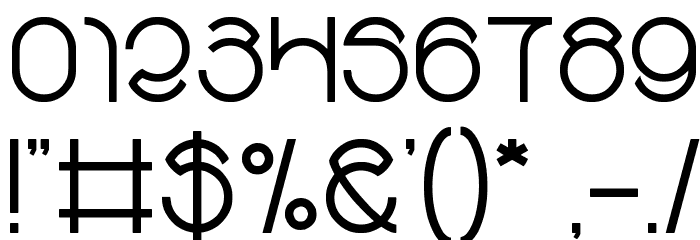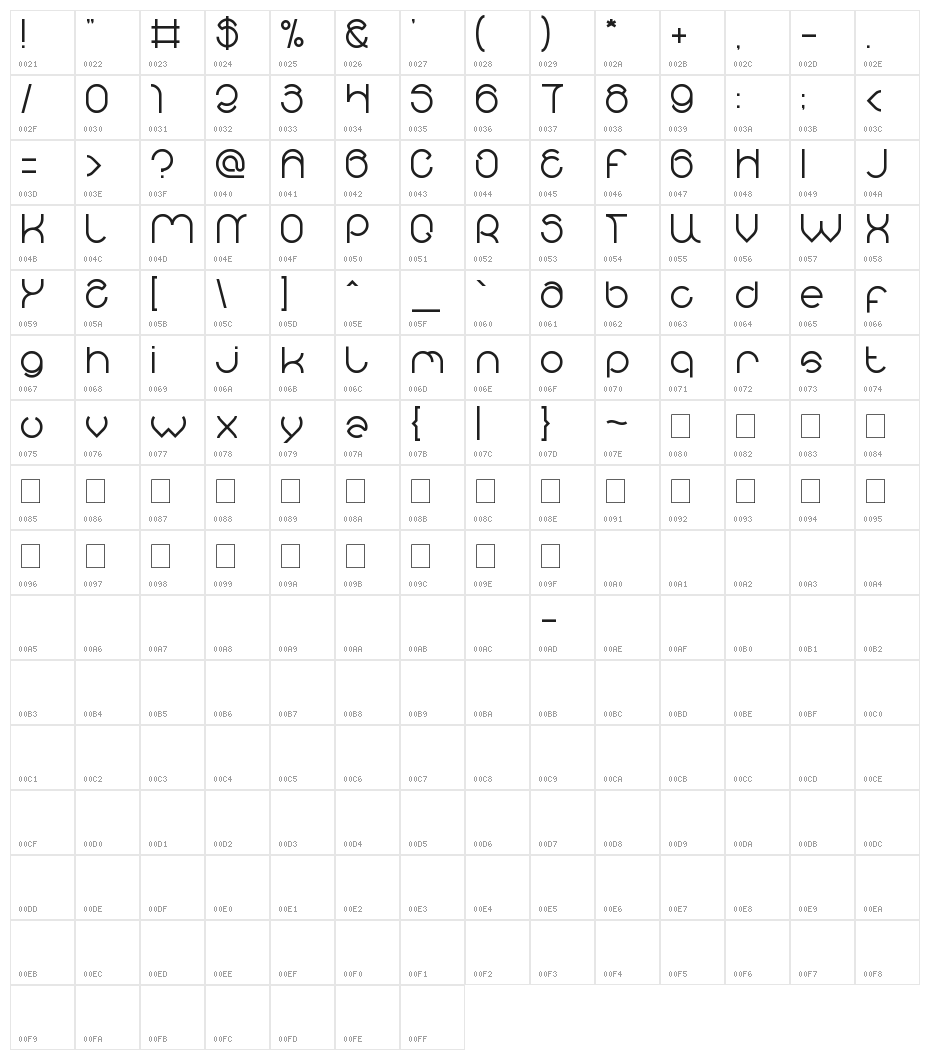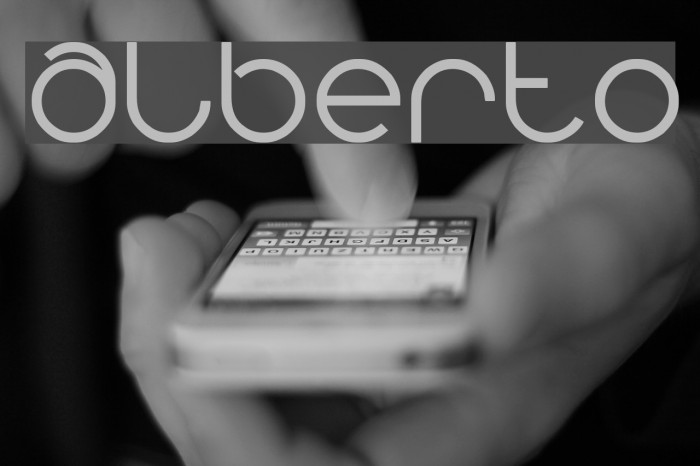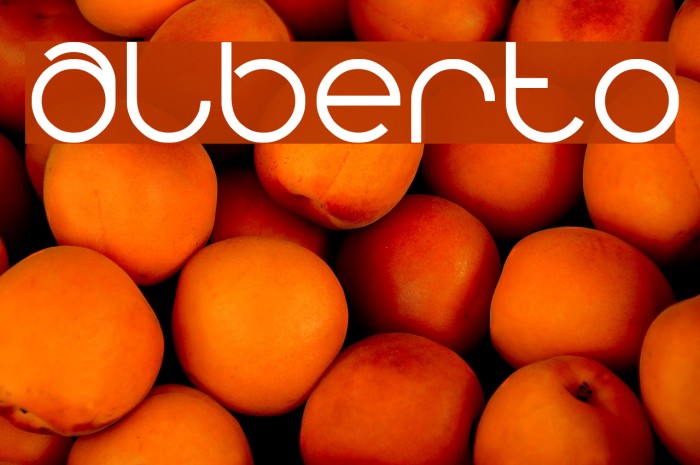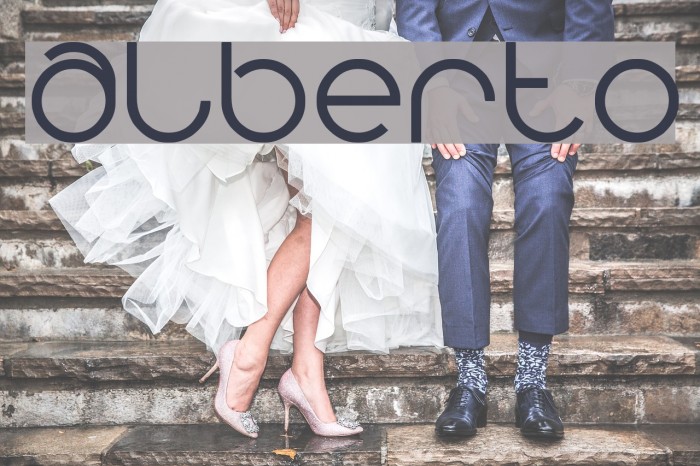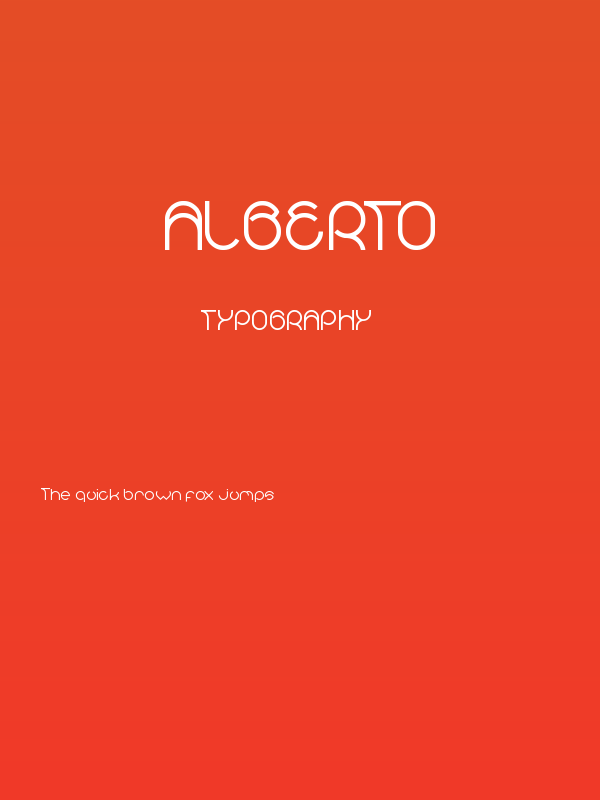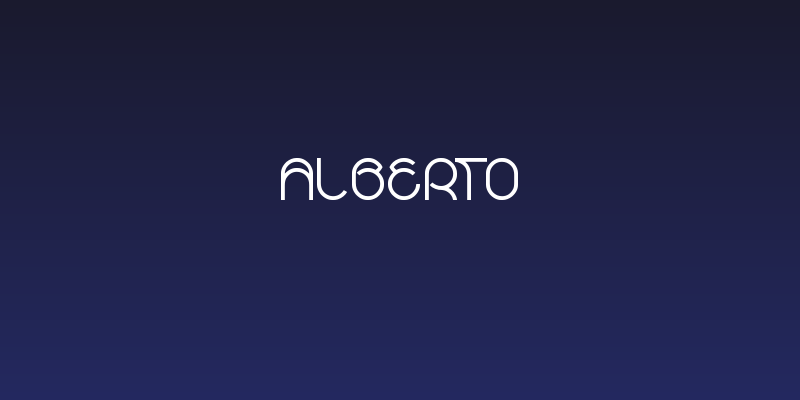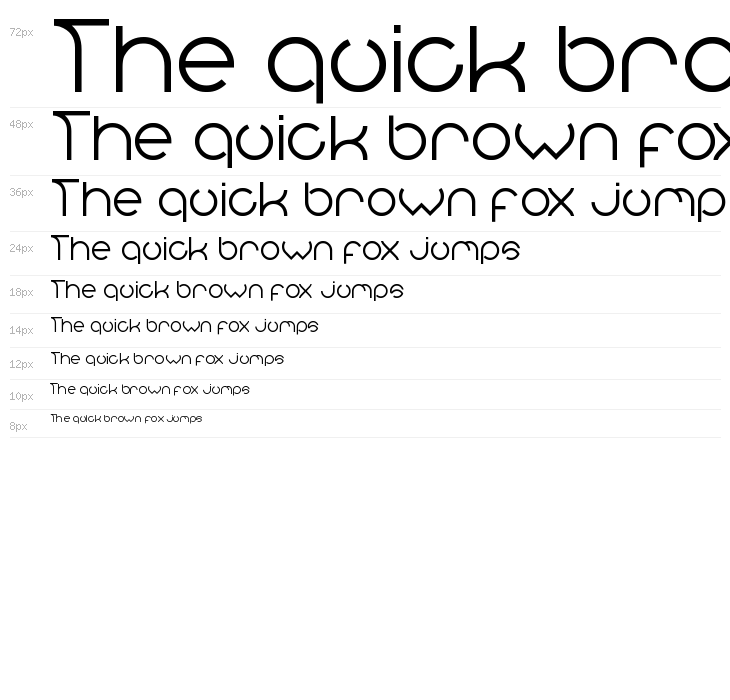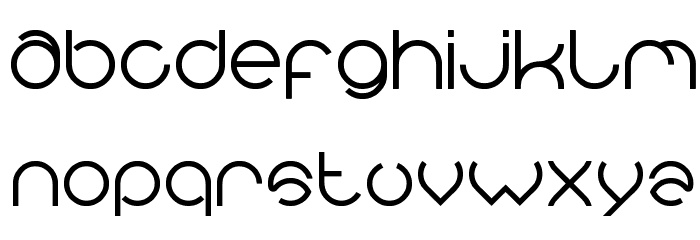
alberto Font
alberto Description
This font features a modern and geometric design with clean, rounded edges and a consistent stroke width. The characters are crafted with a minimalist approach, emphasizing simplicity and readability. The uppercase letters exhibit a uniform height, while the lowercase letters maintain a balanced proportion, enhancing the overall harmony of the typeface. The numerals are distinct and easily distinguishable, making them suitable for various applications. Special characters are included, maintaining the font's cohesive style. This typeface is versatile, suitable for both digital and print media, and can be used effectively in branding, advertising, and editorial design.